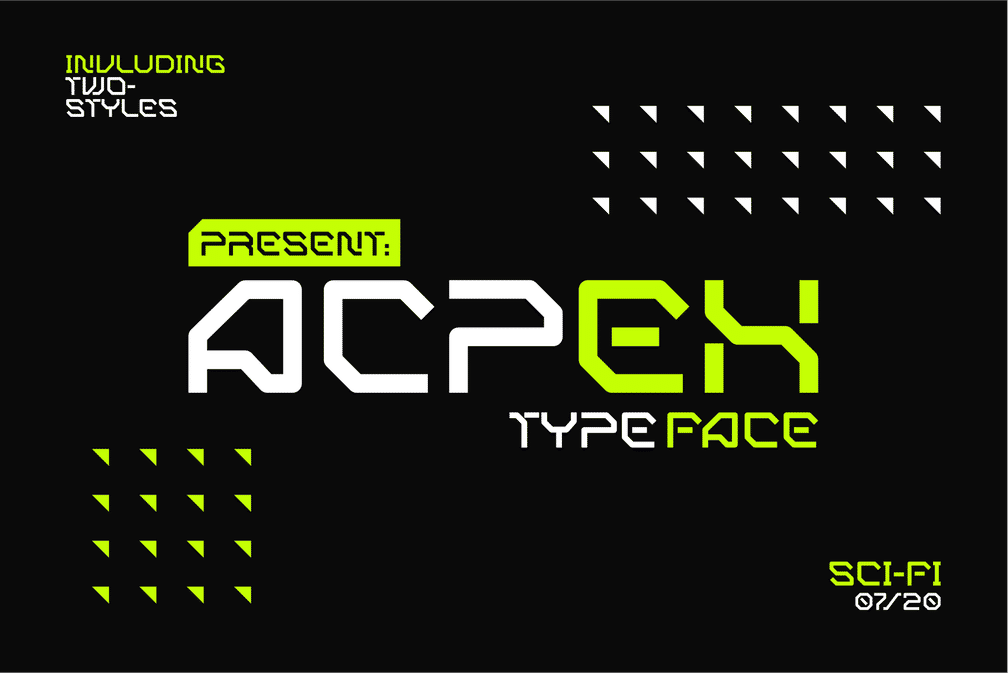
ACPEX SCI-FI TYPEFACE
ACPEX is a font that is inspired by space design style, where this font has a high-tech impression suitable for use in branding like games, e-sports teams or whatever. Besides that, it can be used as a running text on the video, the main font on the logo.
• All Caps
• Punctuation
• Numeral
• Standard English Character